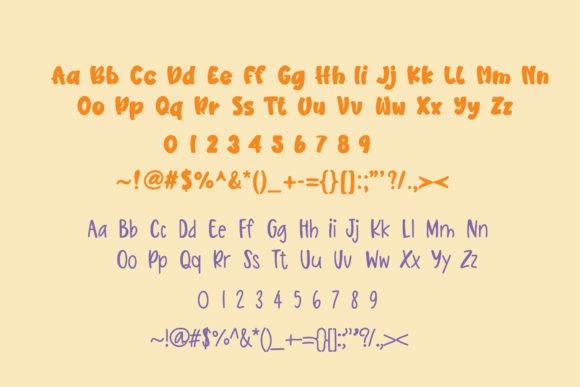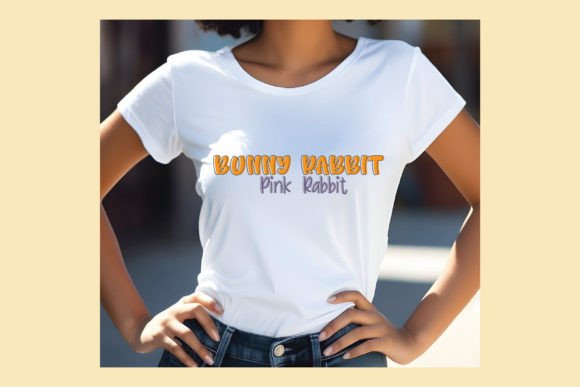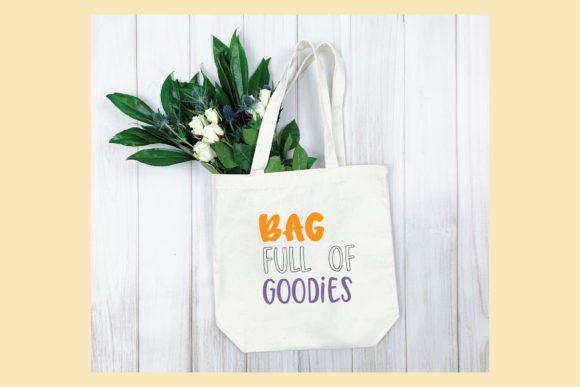
Introduction to Bunny Rabbit Pink Rabbit Font
BunnyRabbit PinkRabbit is a cute and flexible handwritten font.
Its natural and unique style makes it incredibly fitting to a large pool of designs Have fun with this beautiful font and explore its endless variations.
Key Features of Bunny Rabbit Pink Rabbit Font
Why Choose Bunny Rabbit Pink Rabbit Font?
Bunny Rabbit Pink Rabbit Font offers exceptional quality and versatility, making it a valuable addition to your design toolkit. Whether you’re creating for personal projects or commercial use, Bunny Rabbit Pink Rabbit Font delivers professional results.